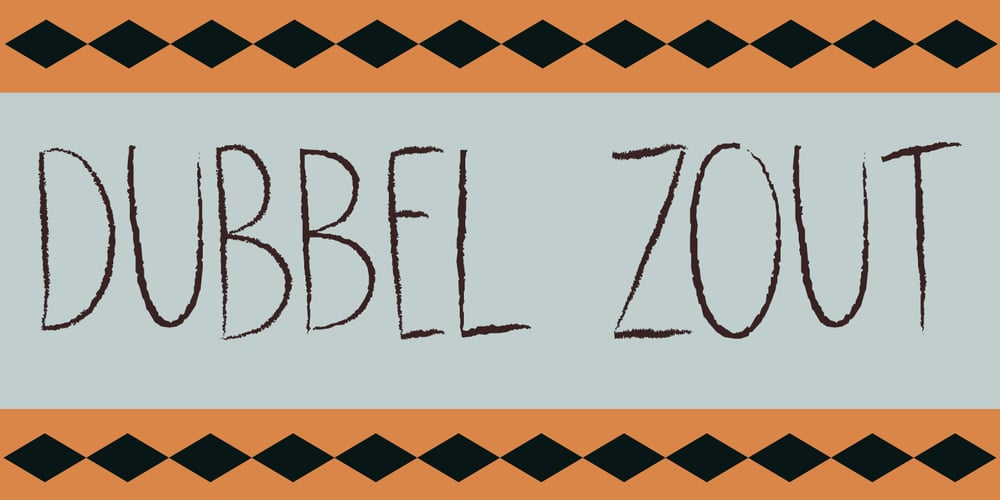
Dubbel Zout Font Family was designed by David Kerkhoff and published by Hanoded. Dubbel Zout contains 2 styles and family package options. Dubbel Zout in Dutch means ‘Double Salt’. I admit, it sounds better in Dutch… Dubbel Zout is a kind of licorice which we (in Holland) love! Not many people actually like it, but I know of one addict in Denmark, who eats it by the bagful. Dubbel Zout is a ‘crayon-ish’ font – all caps, different upper and lower glyphs that you can mix and a royal assortment of diacritics. It may be an acquired taste, but once you get used to it, you’re hooked!